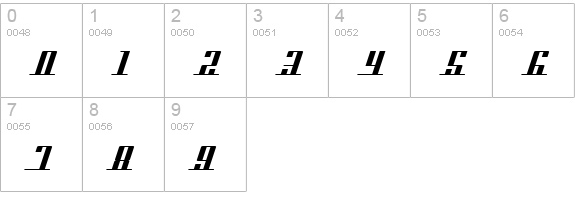
Americana Dreams Expanded is a distinctive, extended-width variant in the Americana typeface family \xE2\x80\x94 well suited to design and typography projects.
Americana Dreams Expanded font is a versatile and bold typeface that captures the essence of classic Americana design with a modern twist. Its wide and condensed letterforms exude a sense of strength and nostalgia, making it perfect for a wide range of design projects. This font is a free addition to the popular Americana Dreams font family, offering even more possibilities for creating eye-catching graphics, logos, posters, and more. Whether you're looking to add a touch of vintage flair or a contemporary edge to your designs, Americana Dreams Expanded has you covered. Best of all, Americana Dreams Expanded font is freely available to download at FontsMarket.com, making it accessible to designers of all skill levels. Embrace the spirit of Americana design and elevate your projects with this striking and versatile typeface today.